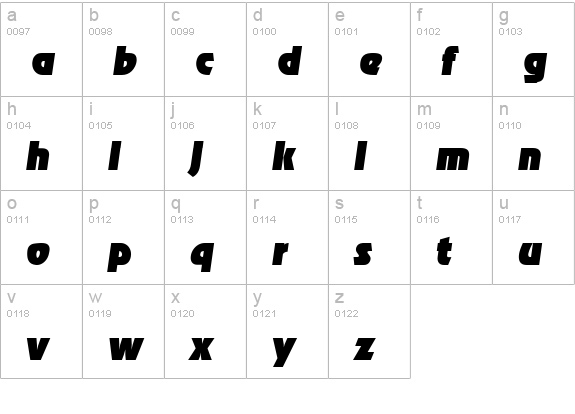
Thimba Display SSi Italic Font Details
Thimba Display SSi Italic is a distinctive, italic variant in the Thimba typeface family \xE2\x80\x94 well suited to design and typography projects.
Thimba Display SSi Italic is an exquisite font that effortlessly combines elegance with a touch of playfulness. This font is perfect for adding a stylish and unique flair to any design project. Its italicized form adds a sense of movement and sophistication, making it ideal for headlines, titles, logos, and invitations. With its sleek and modern look, Thimba Display SSi Italic is sure to capture attention and leave a lasting impression. Its well-defined and beautifully crafted letterforms are a testament to the skill and creativity of its designer. Each character is carefully designed to maintain legibility and readability, even at smaller sizes. One of the best features of Thimba Display SSi Italic is that it is available for free download at FontsMarket.com. This means that you can easily access and use this stunning font in your personal and commercial projects without any cost. Whether you are a professional designer or a casual enthusiast, this font is a valuable addition to your font library. Thimba Display SSi Italic offers a wide range of possibilities for creative expression. Its versatile nature allows it to be used in various design contexts, whether it be for print or digital media. From branding and packaging to websites and social media graphics, this font has the ability to elevate your designs and make them stand out. In summary, Thimba Display SSi Italic is a visually captivating font that combines elegance and playfulness. With its freely available download at FontsMarket.com, it is an accessible and valuable resource for designers of all levels. Add a touch of sophistication to your designs with Thimba Display SSi Italic and let your creativity soar.